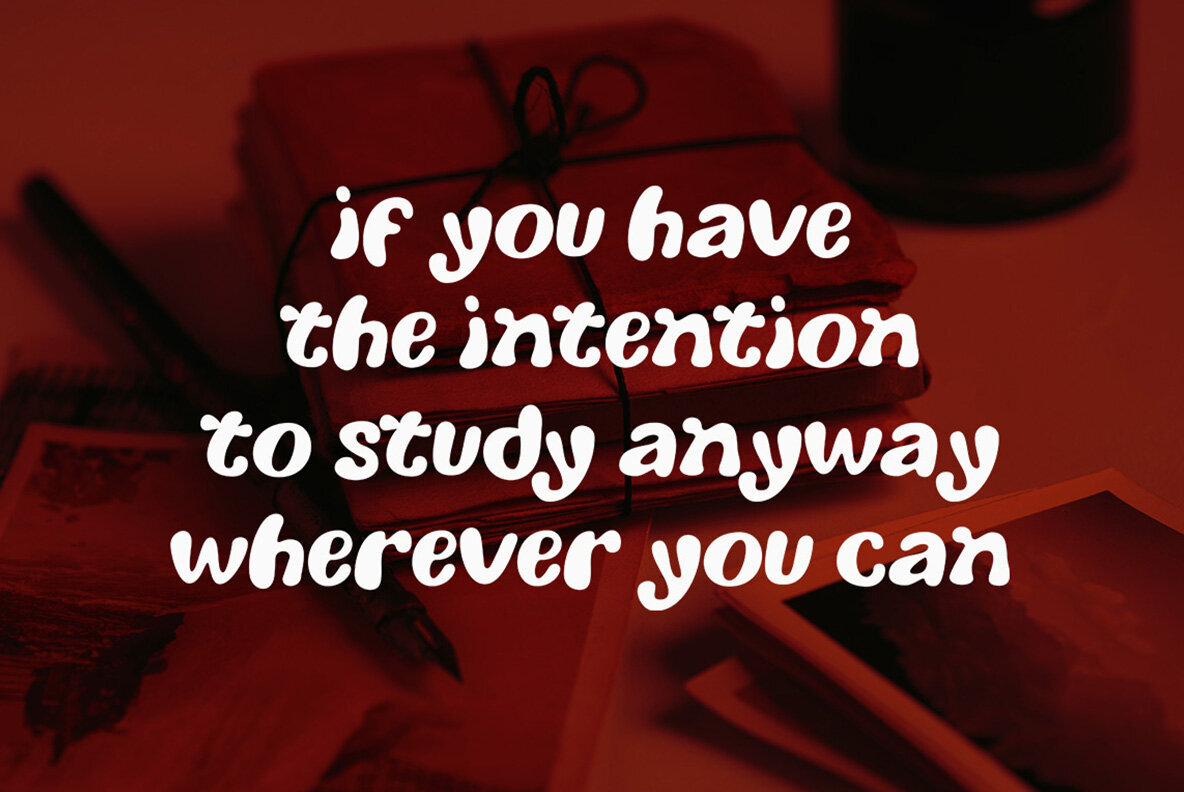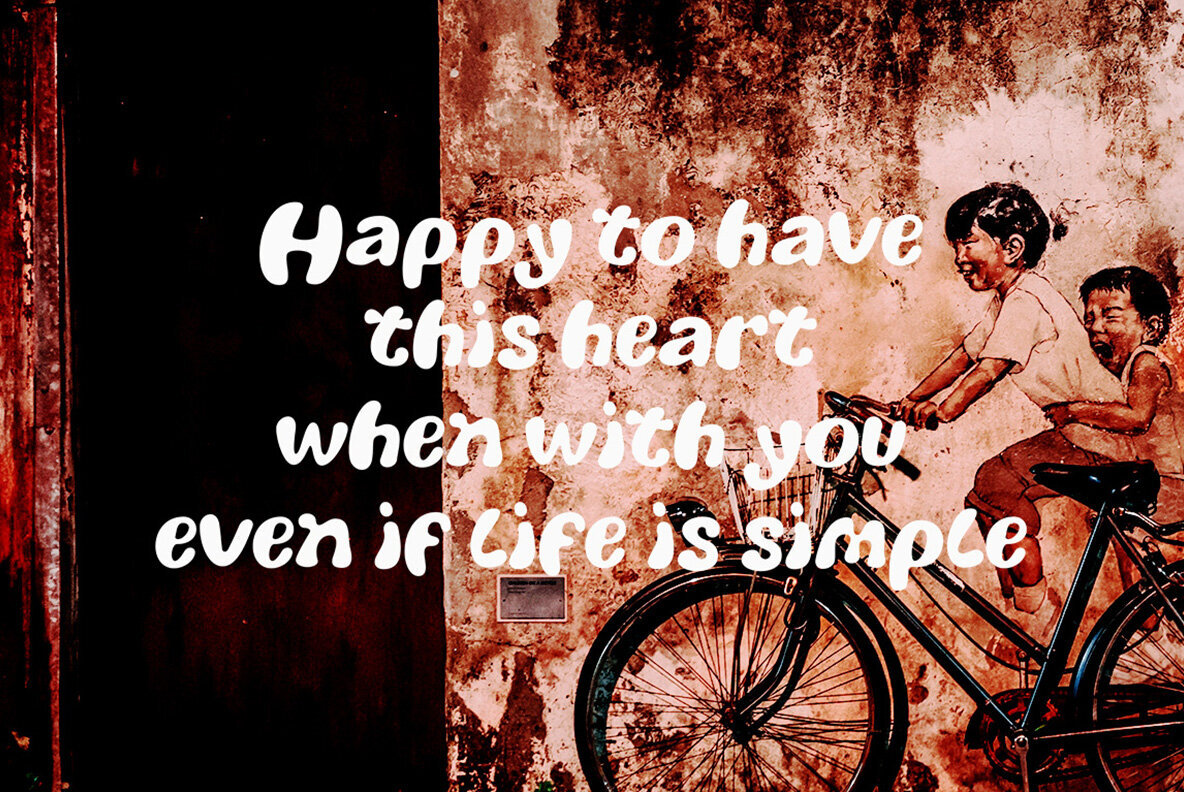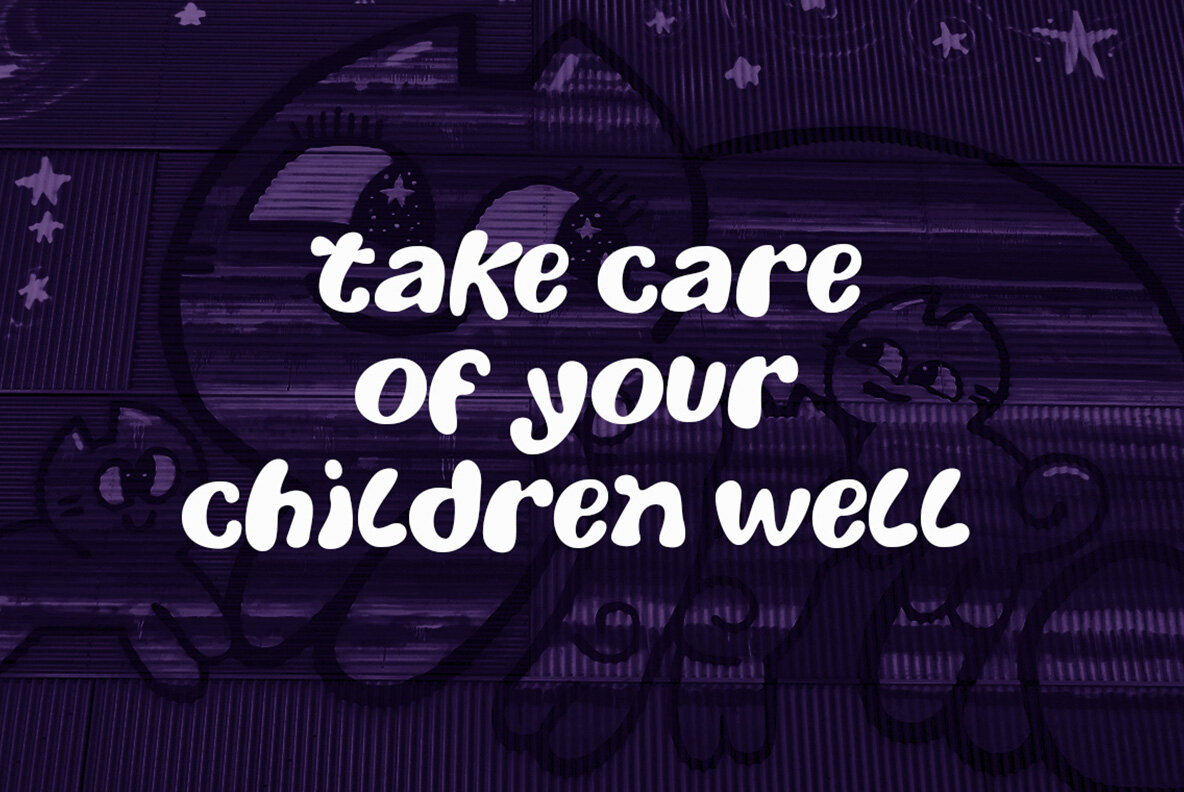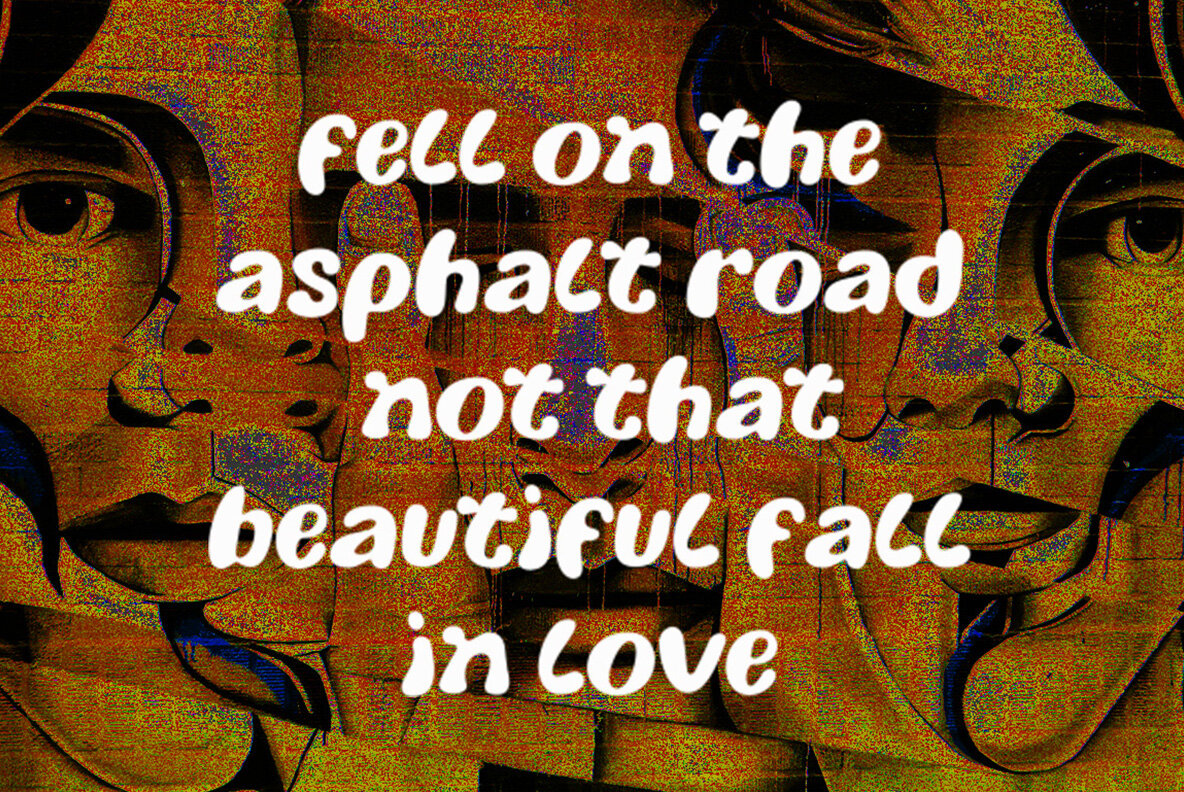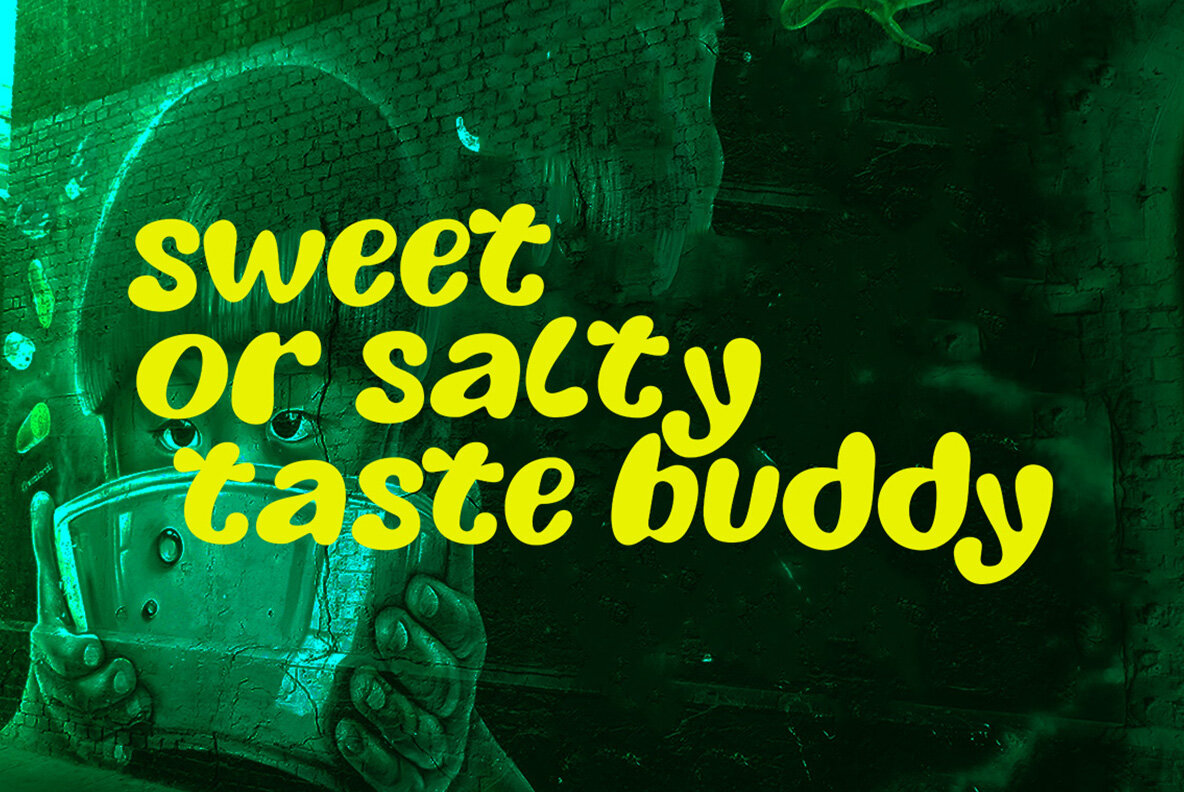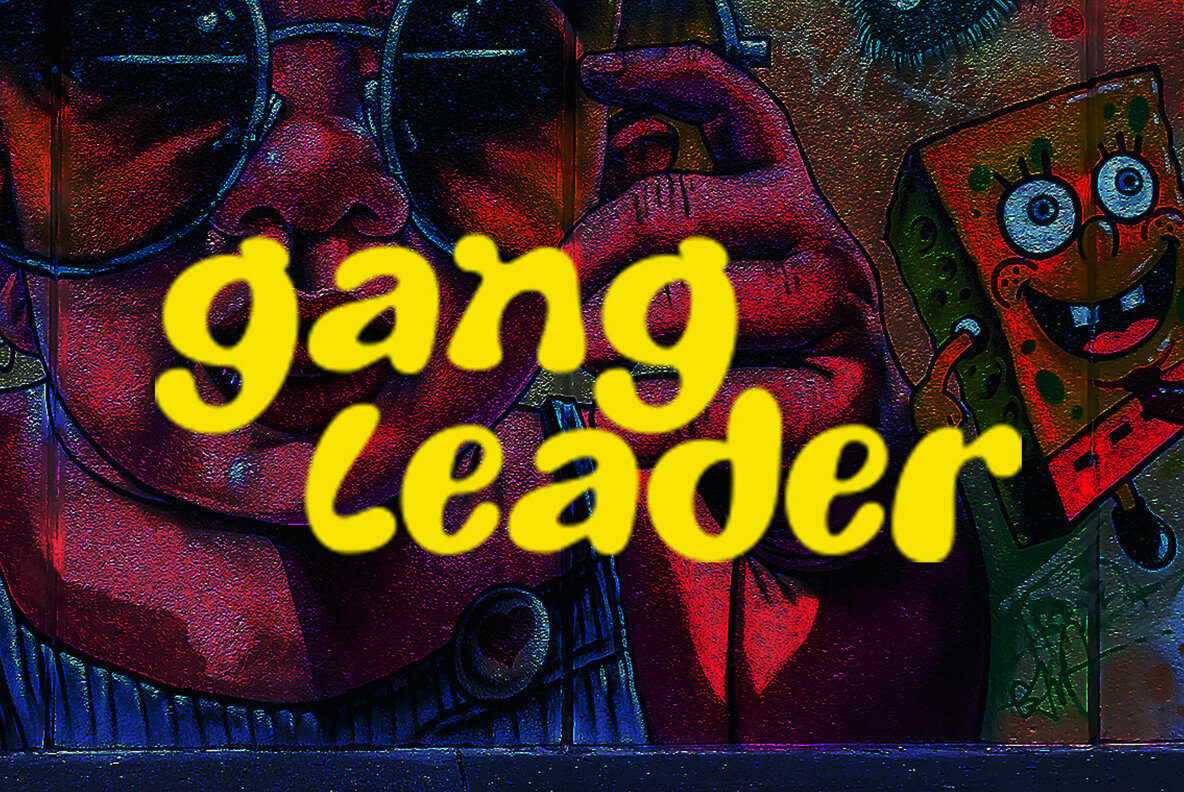
Fairy Tail Font
Fairy Tail Regular
This bold and playful decorative script font is characterized by its curvy, bubbly letters and hand-drawn feel. Perfect for projects that aim to capture a fun and friendly vibe, this font stands out in youth-oriented designs, playful branding, cartoons, comics, and any creative project that requires an eye-catching and informal typeface. Its retro and whimsical aesthetic makes it ideal for artistic and attention-getting headlines.